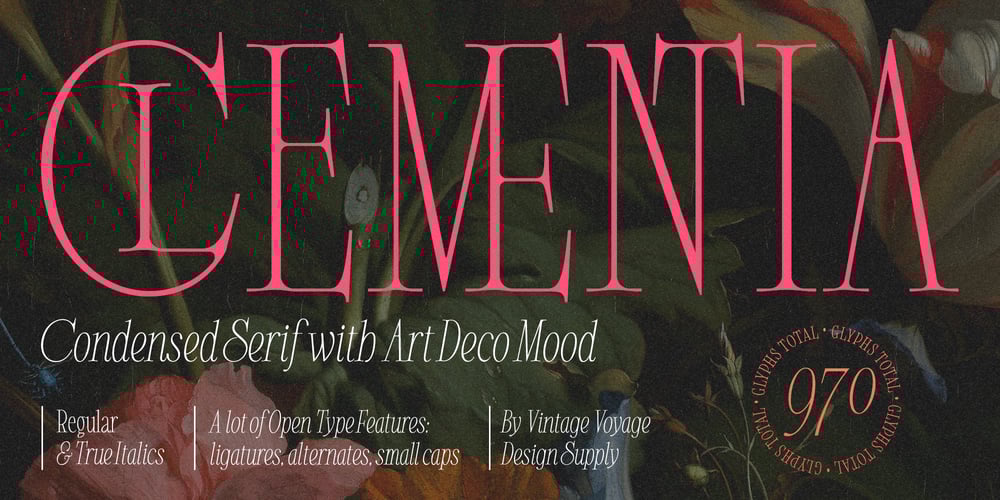
VVDS Clementia Font Family was designed by Pavel Korzhenko and published by Vintage Voyage Design. VVDS Clementia contains 2 styles and family package options. • Clementia – a stylish condensed serif font with Art Deco mood and huge variety of stylistic alternates and ligatures. Thereby your typographic gets a unique and authentic style for a vide variety of projects. Cafe’s menu, wedding invitation, branding, magazine’s headers, t-shirt prints, posters – all these projects will breathe uniqueness. Your typography may be more discreet with basic stylistic set or it can be more playful, artistic and expressive with any of ligatures or stylistic alternates.• 970 Glyphs total; True Italics; Open Type Features as stylistic alternates, ligatures, old style / tabular / fraction / superior figures, manicules and small caps; Multilingual (Include alternates)